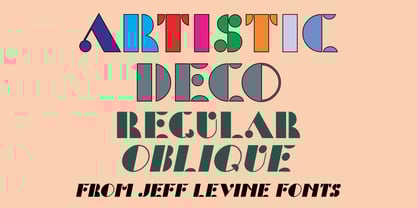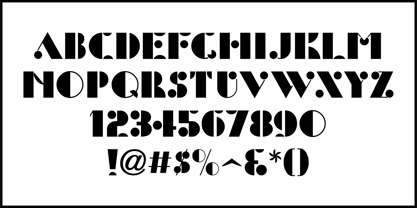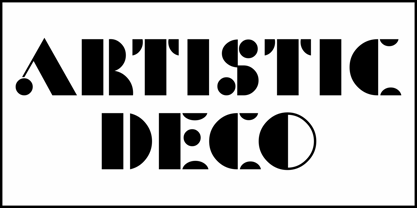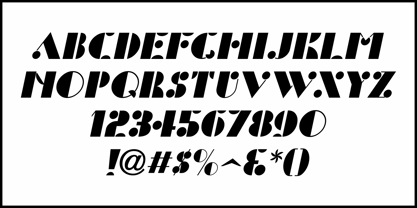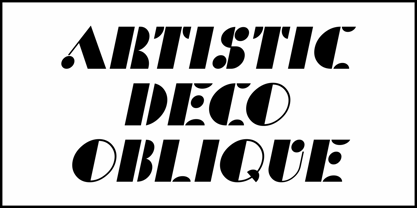
Artistic Deco JNL
by Jeff Levine
The Artistic Deco JNL Font Family was designed by Jeff Levine and published by Jeff Levine. Artistic Deco JNL contains 2 styles and family package options.
An interesting take on the ever-popular Futura Black style of type design was created as "Modern Lettering" by R. E. Cote in 1931. Integrating circles and semicircles into the character shapes added a new dimension to a sometimes overused form of Art Deco lettering.
This is now available digitally as Artistic Deco JNL in both regular and oblique versions.